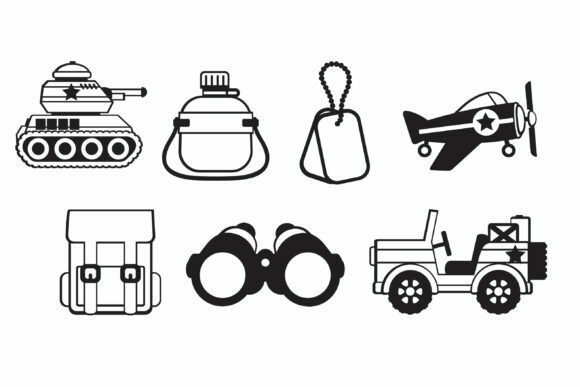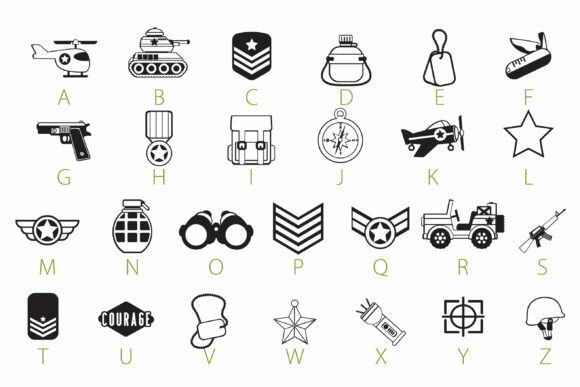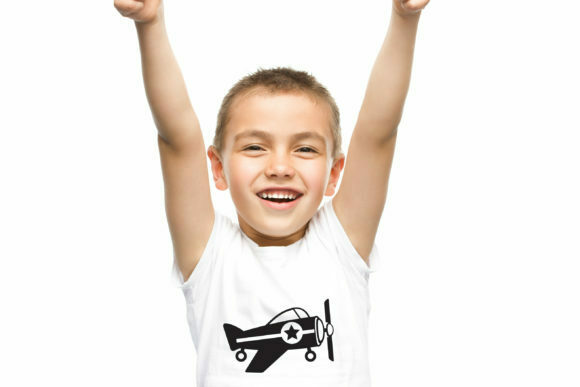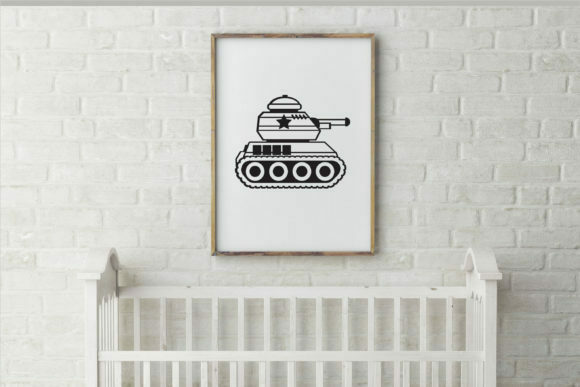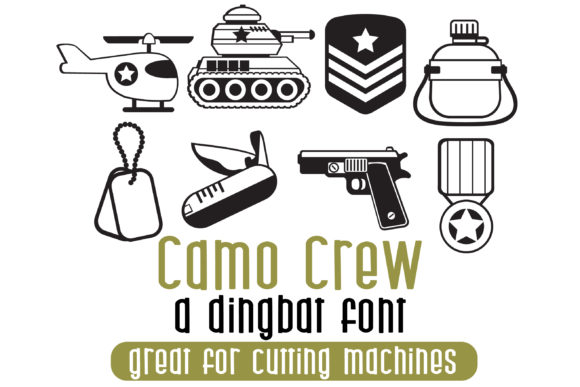
HomeDingbats FontsCamo Crew Font Dingbats Fonts Camo Crew Font FacebookXPinterestWhatsApp 1 of 5 About Camo Crew Font This dingbat font has 26 army related images. It will put a military twist to any design project! DOWNLOAD NOW People also explored Feel Your Hand Font Mama Typeface Font Northland Ballance Font Spotlight Font Historia Sky Duo Font Centhiny Font Triunfo Family Bigted Font Girlfriend Font 293 0 TagsCamo Crew Font Previous articleReel Cool FontNext articleVery Useful Font LEAVE A REPLY Cancel reply Comment: Please enter your comment! Name:* Please enter your name here Email:* You have entered an incorrect email address! Please enter your email address here Website: Save my name, email, and website in this browser for the next time I comment. Personal Use Free Yumail Personal Use Free Read more about this font Haris Wood Personal Use Free Read more about this font Spring Personal Use Free Read more about this font Oaklevin Personal Use Free Read more about this font BLOG Using Fonts in Digital Marketing: Tips to Strengthen Your Brand Identity In the realm of digital marketing, every visual element plays a crucial role in shaping a brand's identity, and fonts are no exception. The... Free vs Paid Fonts: Why Investing in Premium Fonts Is Worth It 5 Fonts That Will Dominate Design Trends in 2026 To increase your work productivity, choose the most readable fonts.